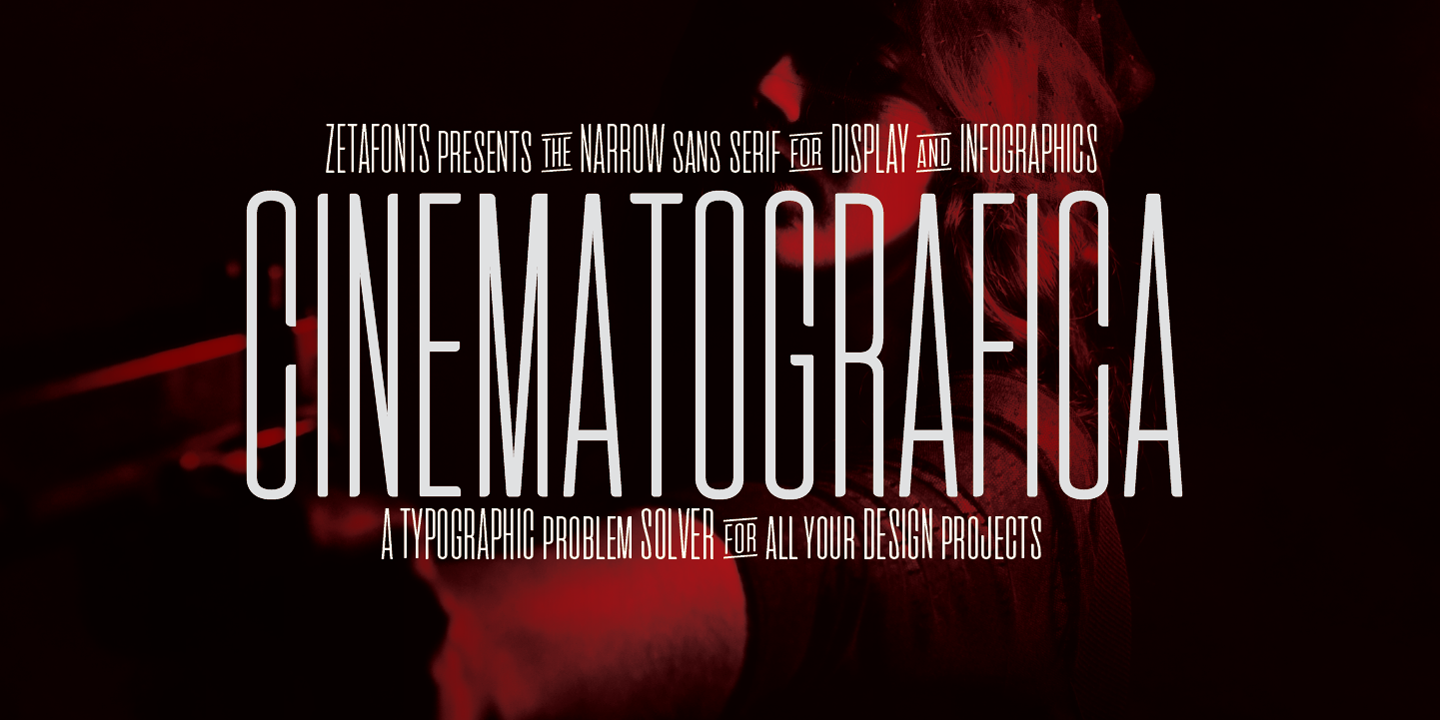
Cinematografica Font is perfect for movie titles, film festival materials, cinema branding, entertainment industry campaigns, documentary credits, theatrical productions, video production companies, streaming platform design, film school publications, and cinematic projects that require authentic Hollywood glamour and professional entertainment industry appeal.
What makes Cinematografica Font truly exciting is its authentic capture of classic Hollywood elegance and cinematic grandeur that instantly evokes the golden age of filmmaking and entertainment excellence. This exceptional typeface combines timeless movie industry sophistication with contemporary versatility, featuring distinctive letterforms that convey both artistic prestige and commercial appeal. The font's cinematic heritage and dramatic character make it perfect for projects that need to communicate entertainment value, artistic vision, and the magical storytelling power of motion pictures.
The Cinematografica Font family includes multiple weights and styles: Light, Regular, Medium, Bold, and Condensed variations designed for maximum dramatic impact. Each family member maintains the distinctive cinematic character while offering flexibility for diverse entertainment applications and film industry branding systems. The comprehensive character set supports international film markets and special entertainment design elements, making it suitable for global cinema communications.
When you choose Cinematografica Font Free Download, you're selecting a typography star that brings instant Hollywood sophistication to any project. This distinctive typeface excels in applications where entertainment value and cinematic appeal are paramount, delivering exceptional visual drama while maintaining professional industry standards. Whether you're designing film materials, entertainment brands, theatrical campaigns, or media publications, this font provides the cinematic elegance and entertainment industry authenticity that resonates with audiences who appreciate quality storytelling and professional film production values.